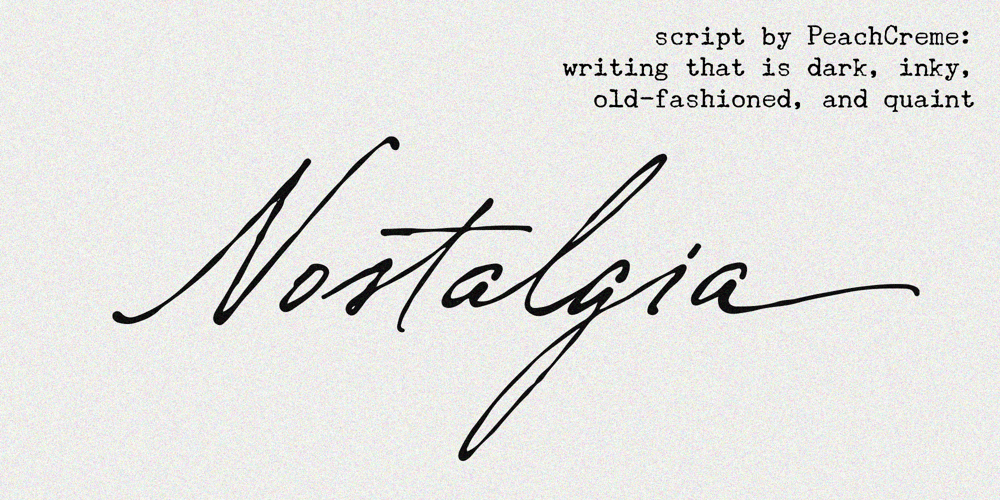
Nostalgia Peach Creme Font Family was designed by Gulya Yeap and published by PeachCreme. Nostalgia Peach Creme contains 1 styles and family package options. The “Nostalgia” font is a dark, vintage style that includes all the basic characters (letters, numbers, and punctuation) and is very simple to read. “Nostalgia” was inspired by inky handwriting with a natural flow and has fantastic starting and ending lowercase swashes. It works well for a wide range of projects, from wedding stationery to Instagram quotes to contemporary logos to packaging to websites.Consequently, these top-notch, traditionally-styled hand-drawn characters would be an excellent and priceless resource for those who want to write by hand. The headlines and titles you create will look fantastic with this font.